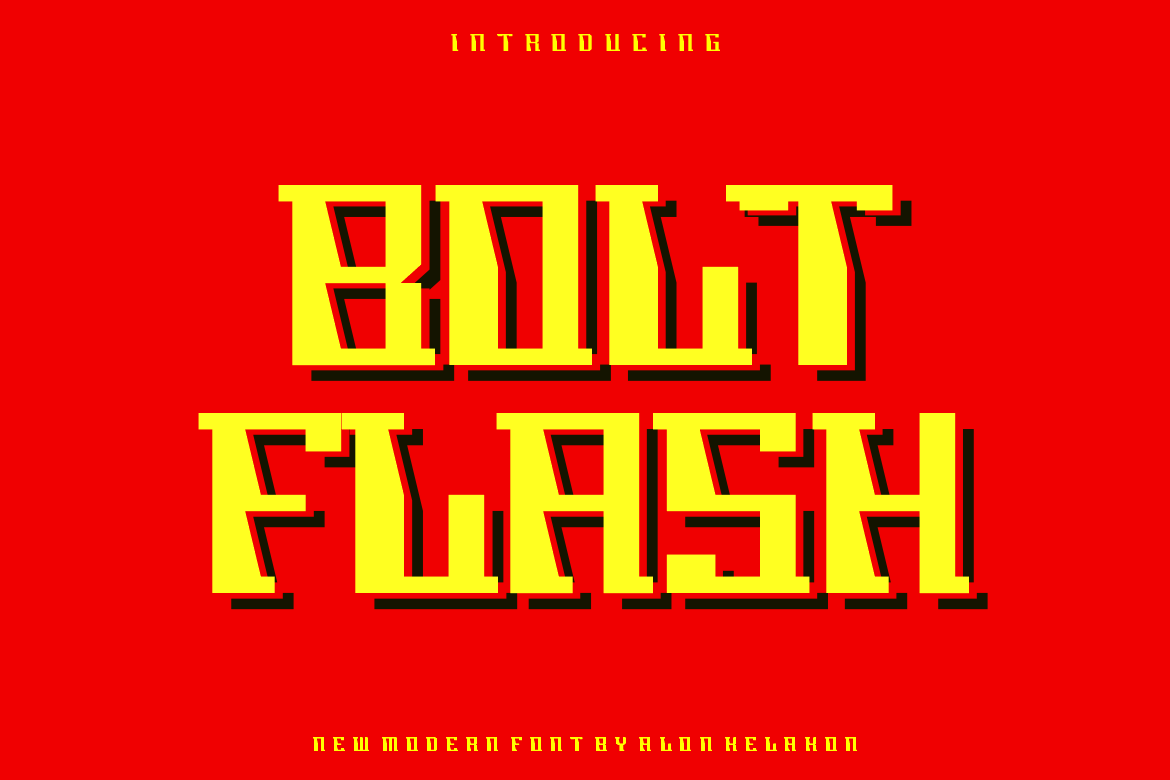
Bolt Flash Font
Bolt Flash Font Font is unique . Ready to use for your design like labeling, clothing, movie sceen, poster, movie title, gigs, album covers, logos, and much more.